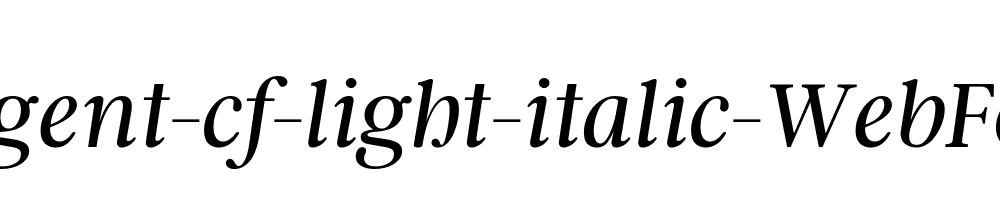
About argent-cf-light-italic-WebFont
Font Weight Name: argent-cf-light-italic-WebFont, Font Family: , designed by . This font is part of the family, licensed with , and manufactured by . The current version is “. A closer look at this font reveals a delicate balance between elegance and structure, with its graceful arcs and subtle serifs exuding a sense of sophistication. The open counters and slender hairlines add a touch of refinement, while the expressive loops and terminals inject a hint of playfulness. The ascenders reach for the sky with confidence, while the descenders trail off with a gentle curve. The bilateral serifs and brackets provide a sturdy foundation, giving the font a classic yet progressive feel. The smooth curves and sharp angles create a harmonious blend of modernity and tradition, making it suitable for a wide range of design projects. In terms of classification, this font can be categorized as elegant yet rugged, combining a serious demeanor with a friendly charm. Its organic Technic nature is evident in the fluid strokes and natural flow, while the warmth of its details adds a touch of comfort to its overall tone. Overall, this font strikes a perfect balance between familiarity and daring, making it a versatile choice for any design endeavor.